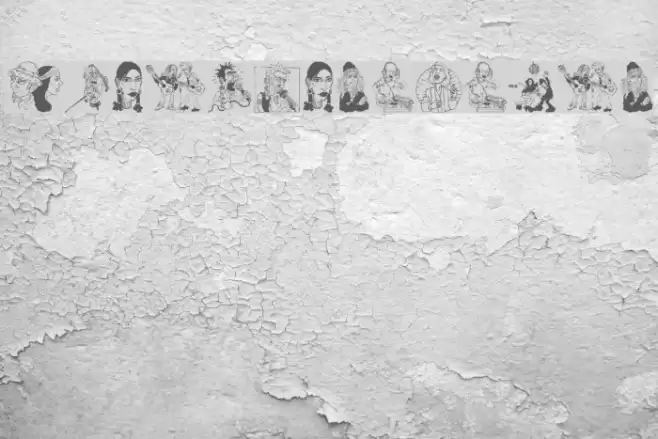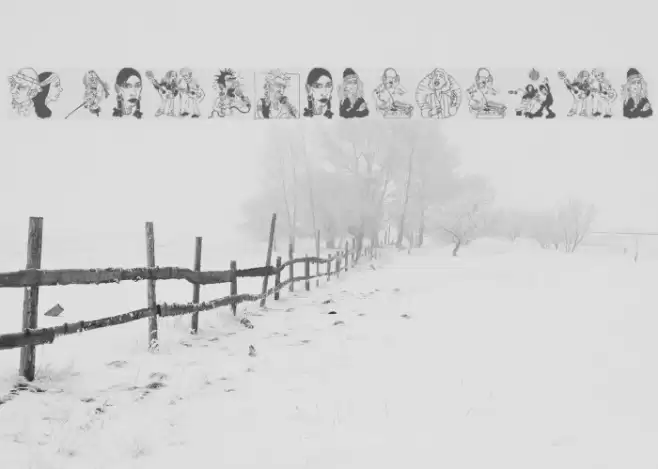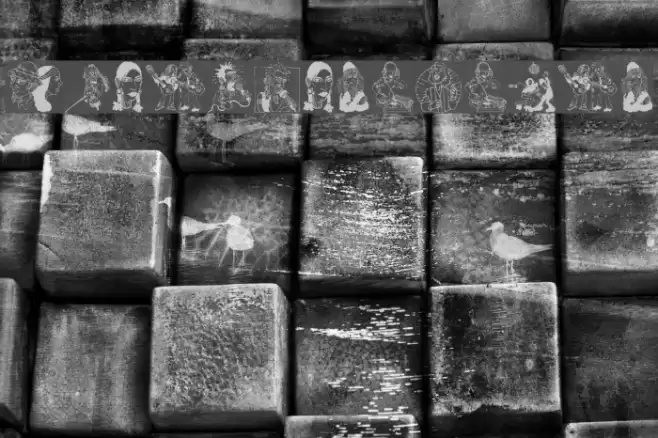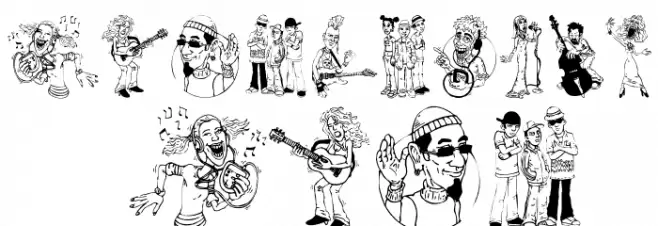
YoungMusicians Font
YoungMusicians Description
A playful, decorative font featuring detailed cartoon illustrations of young musicians and musical scenes for each character, rendered in black and white with expressive, hand-drawn linework.
Cartoonish, music-themed decorative font with illustrated characters from Uncategorized fonts.
- Proposed Projects: Children's music event posters, educational materials, album covers, themed party invitations.
- Overall Style: Playful, Decorative, Cartoonish
- Use Case: Headlines, Posters, Themed Graphics